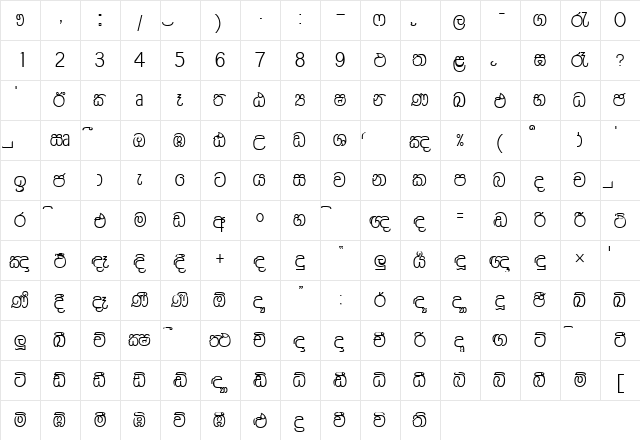
Ranasuru-PC Normal
Design Context for Ranasuru-PC Typeface
Ranasuru-PC takes a measured approach to typography — its balanced proportions and neutral character make it a reliable workhorse for both digital and print work.